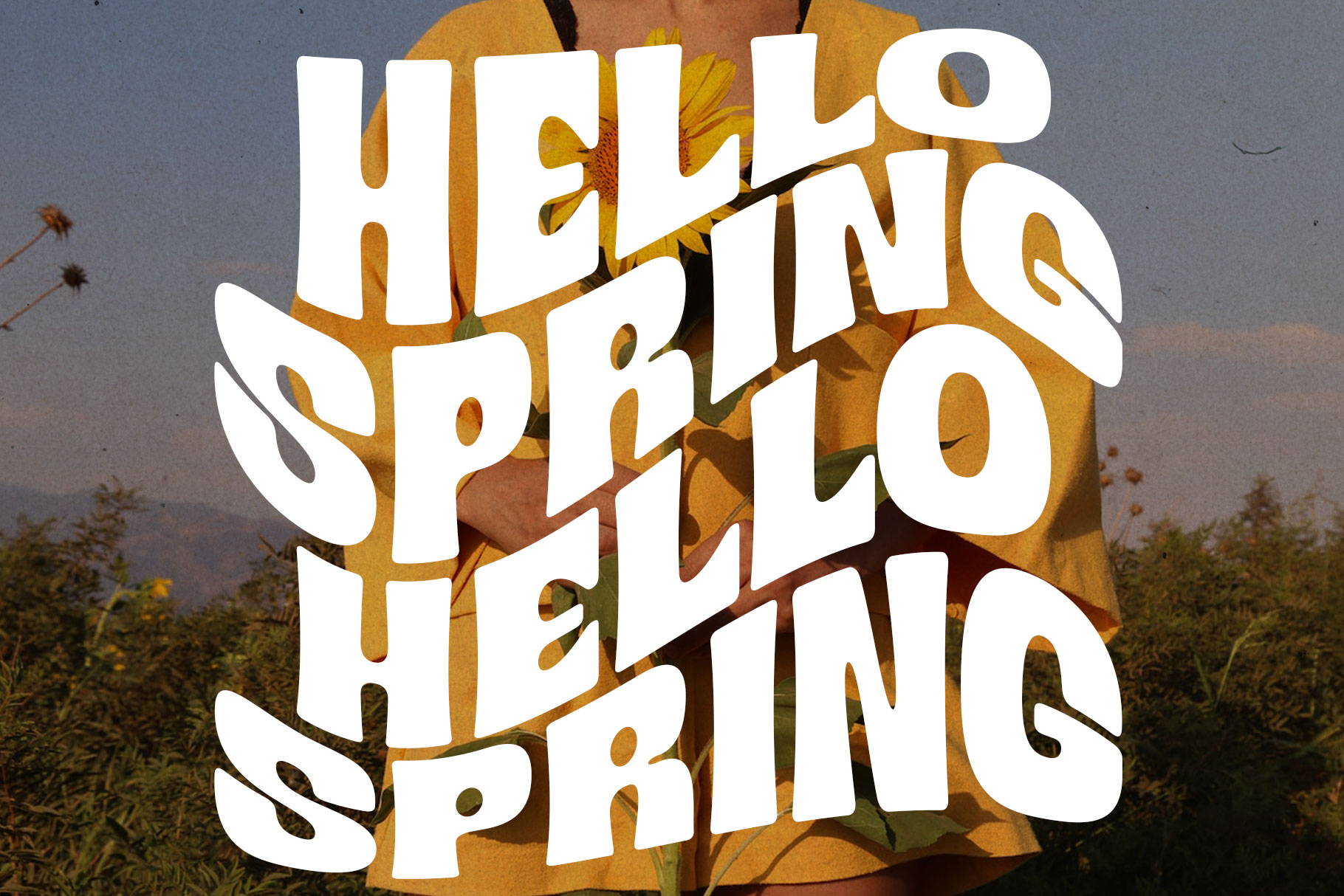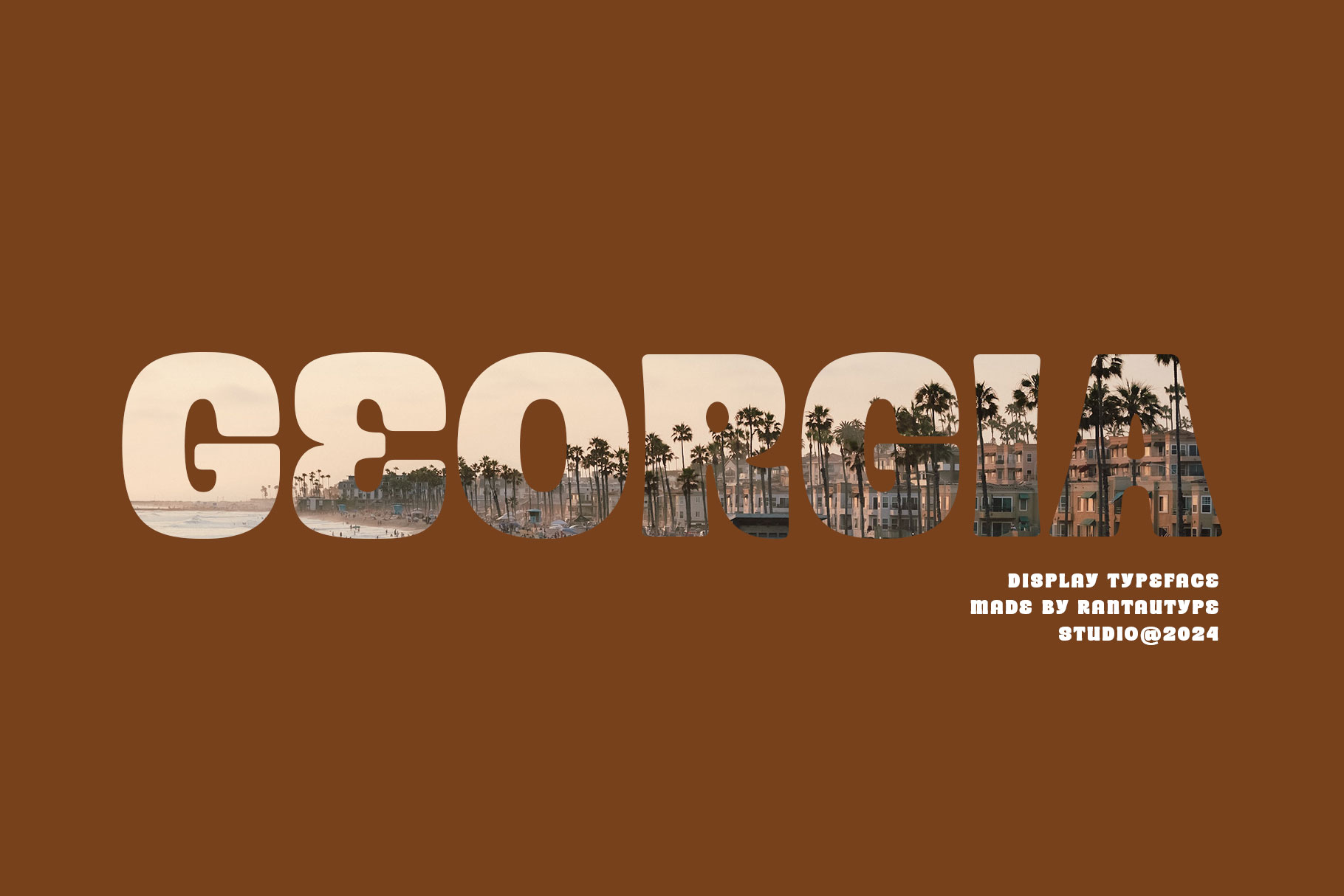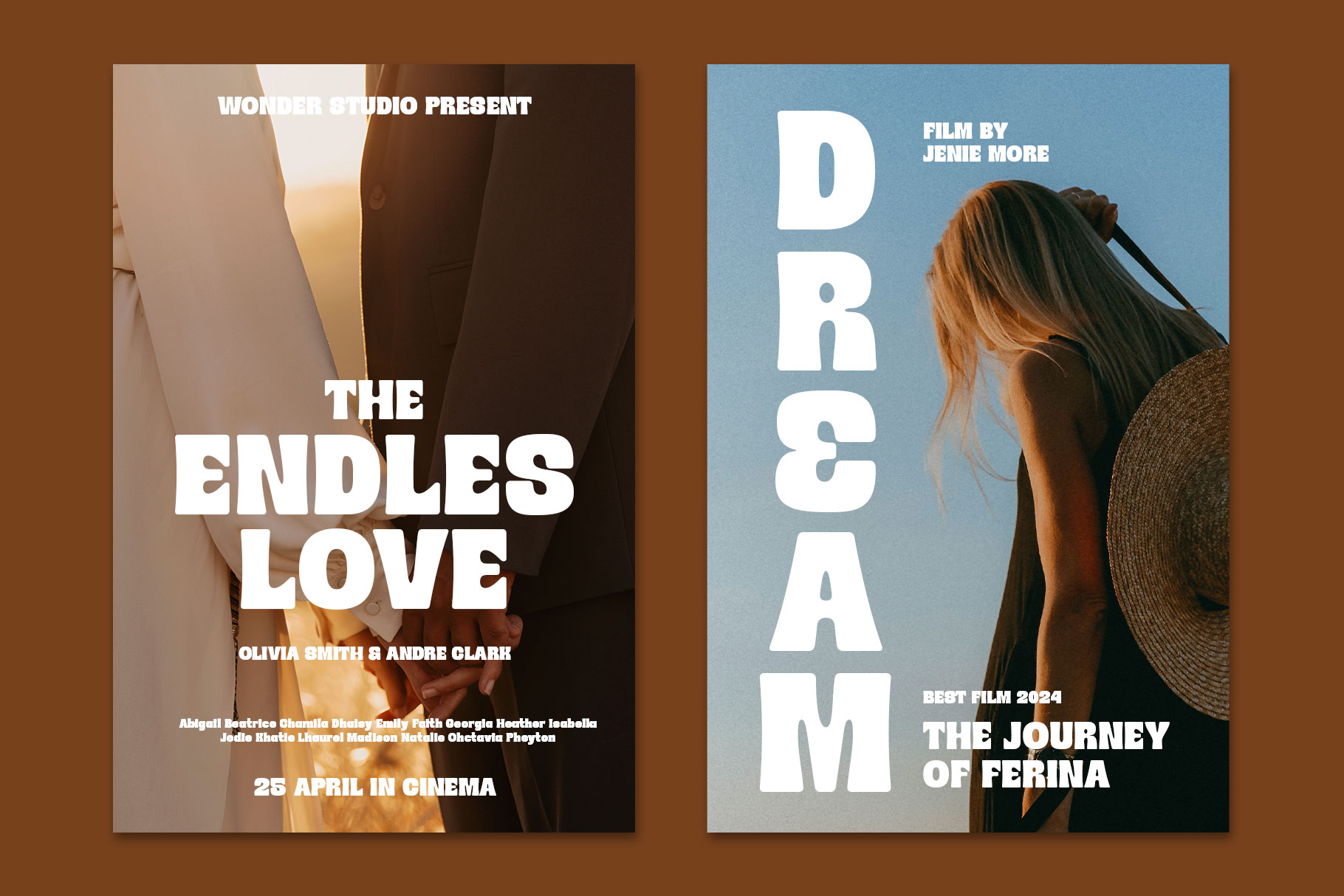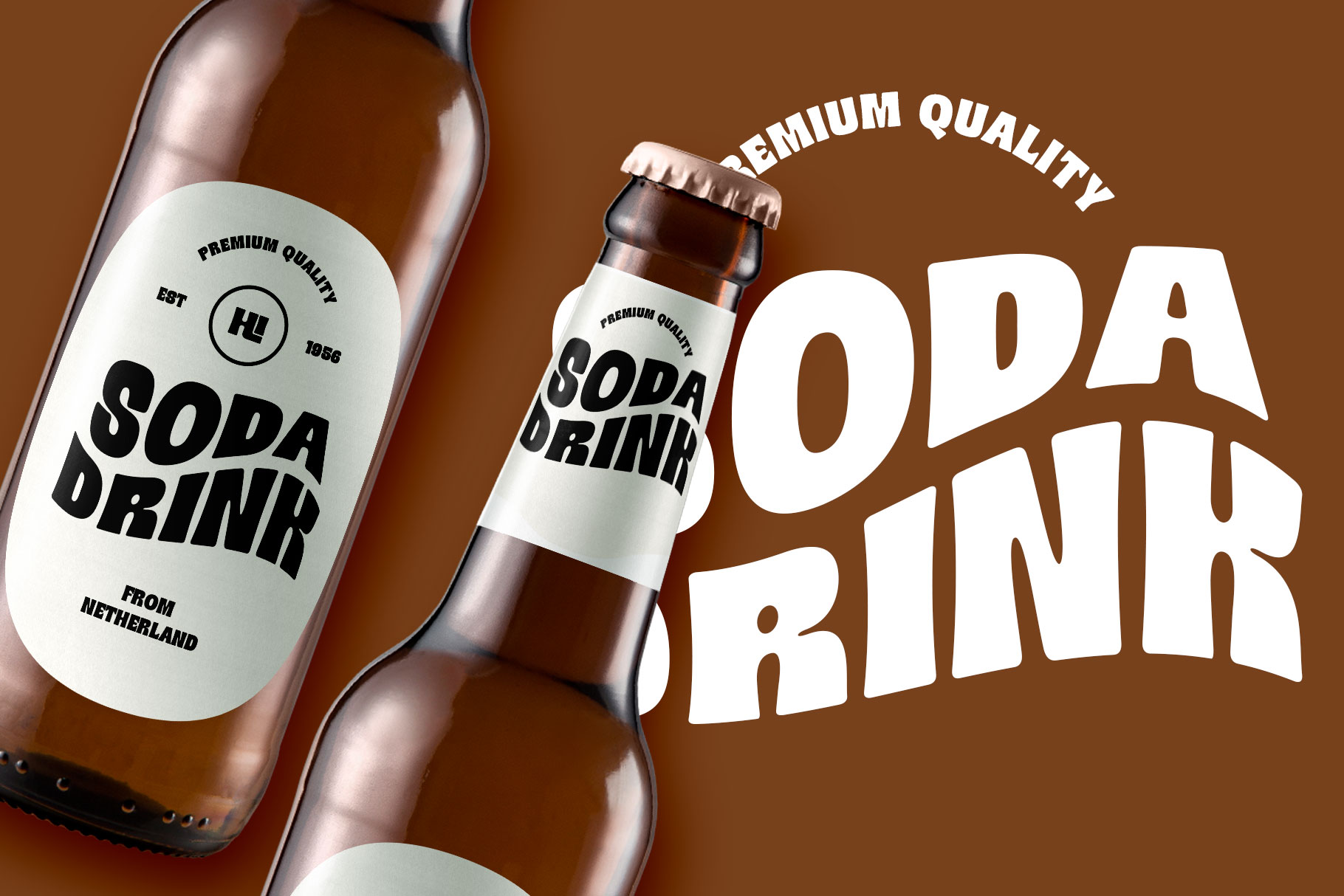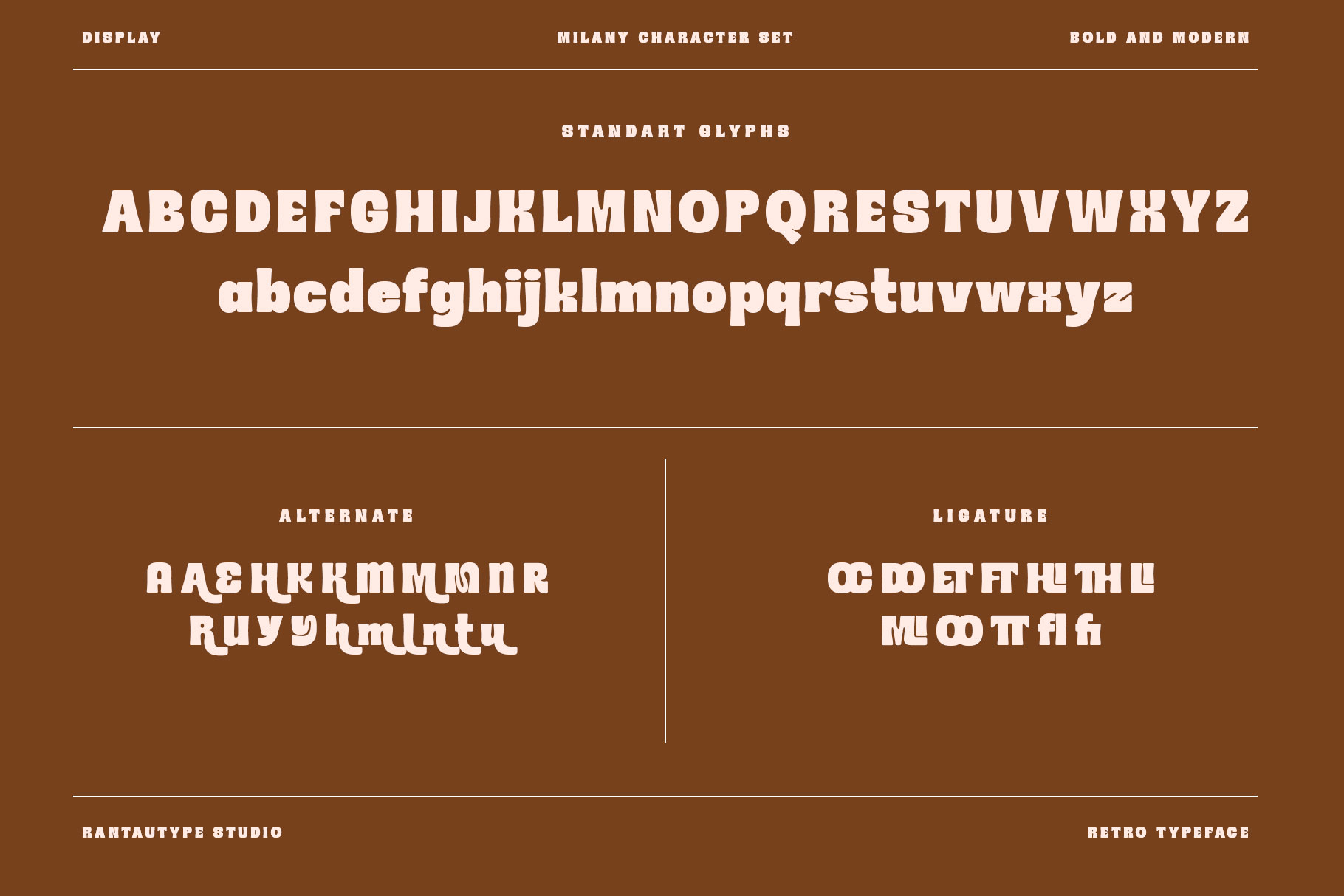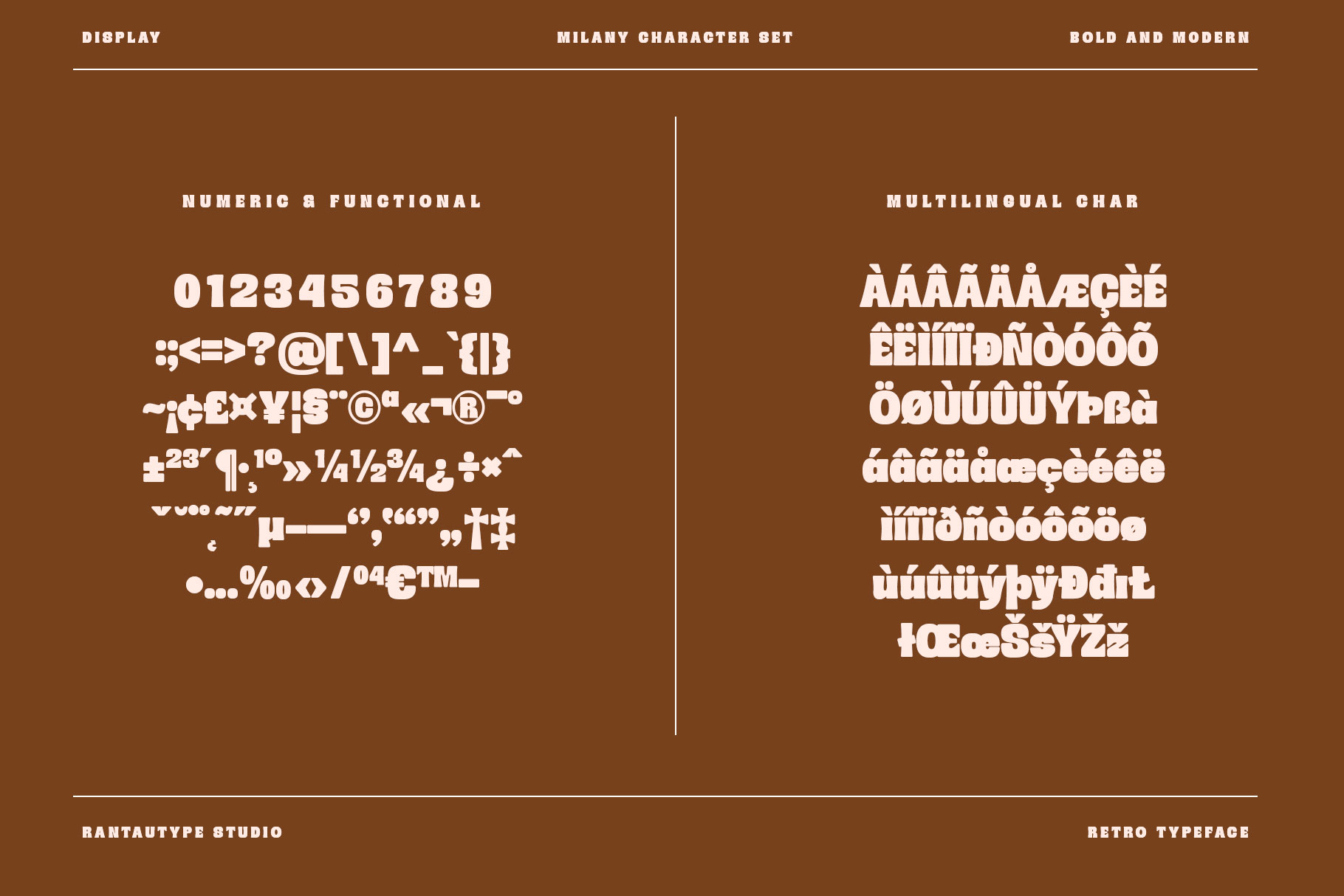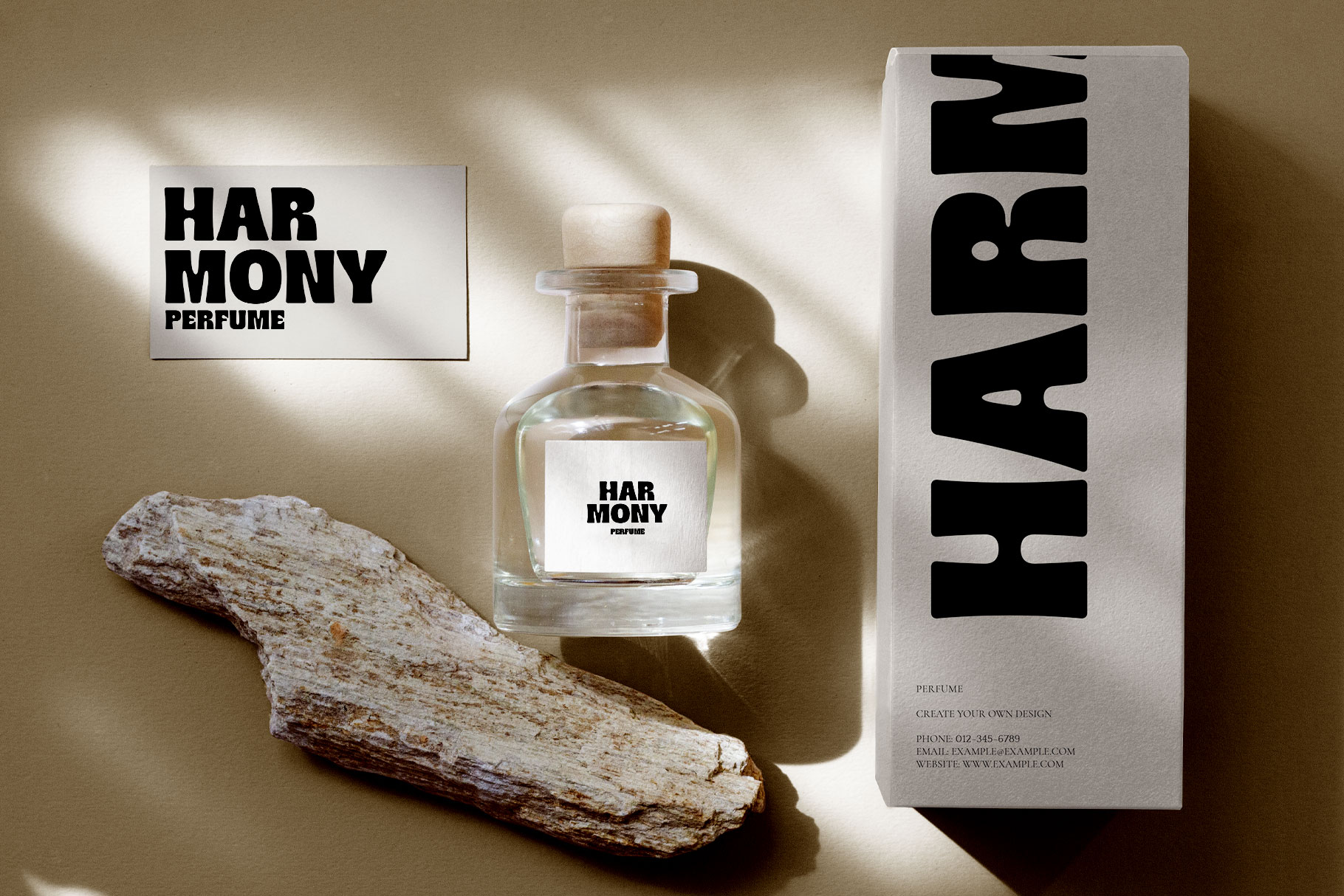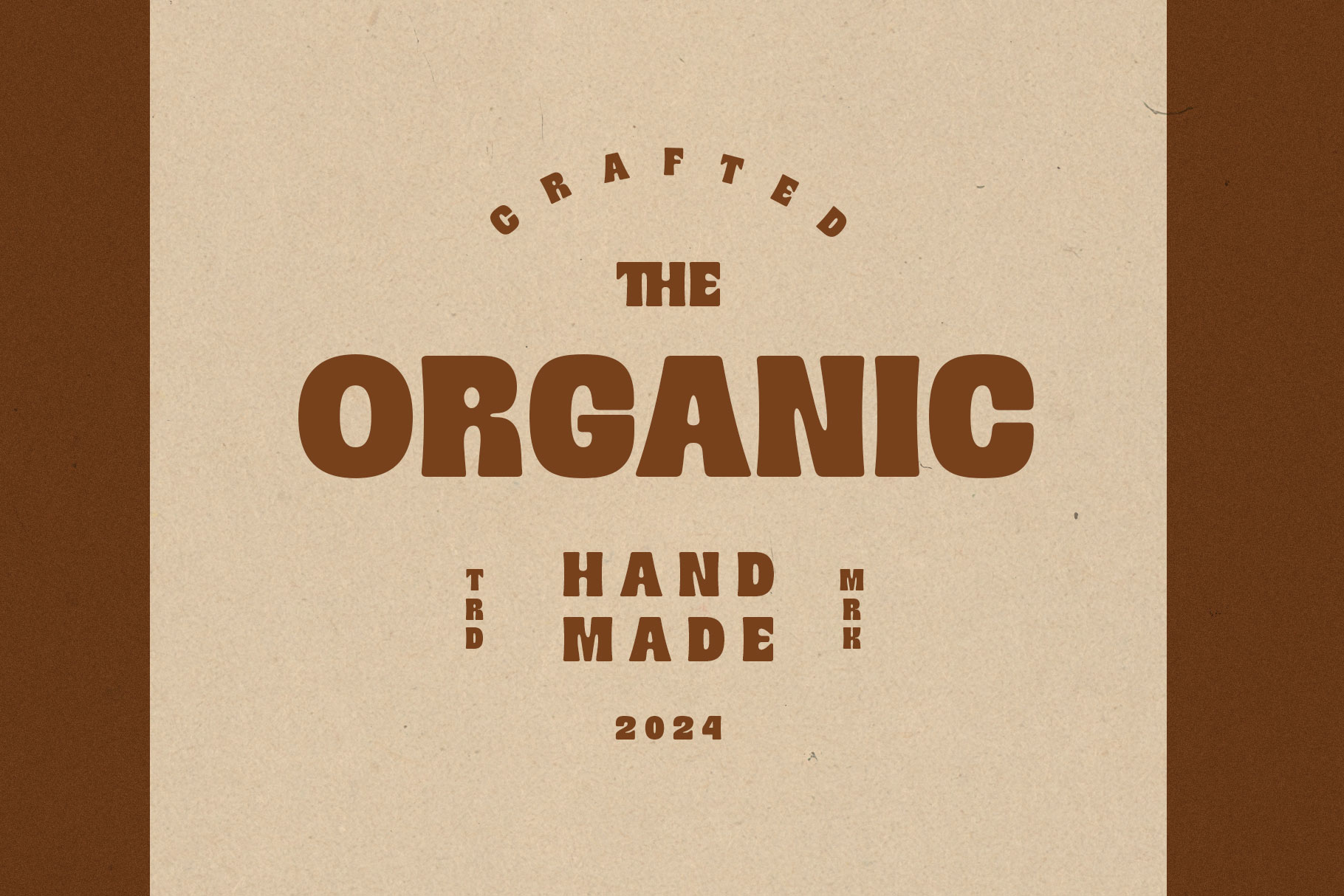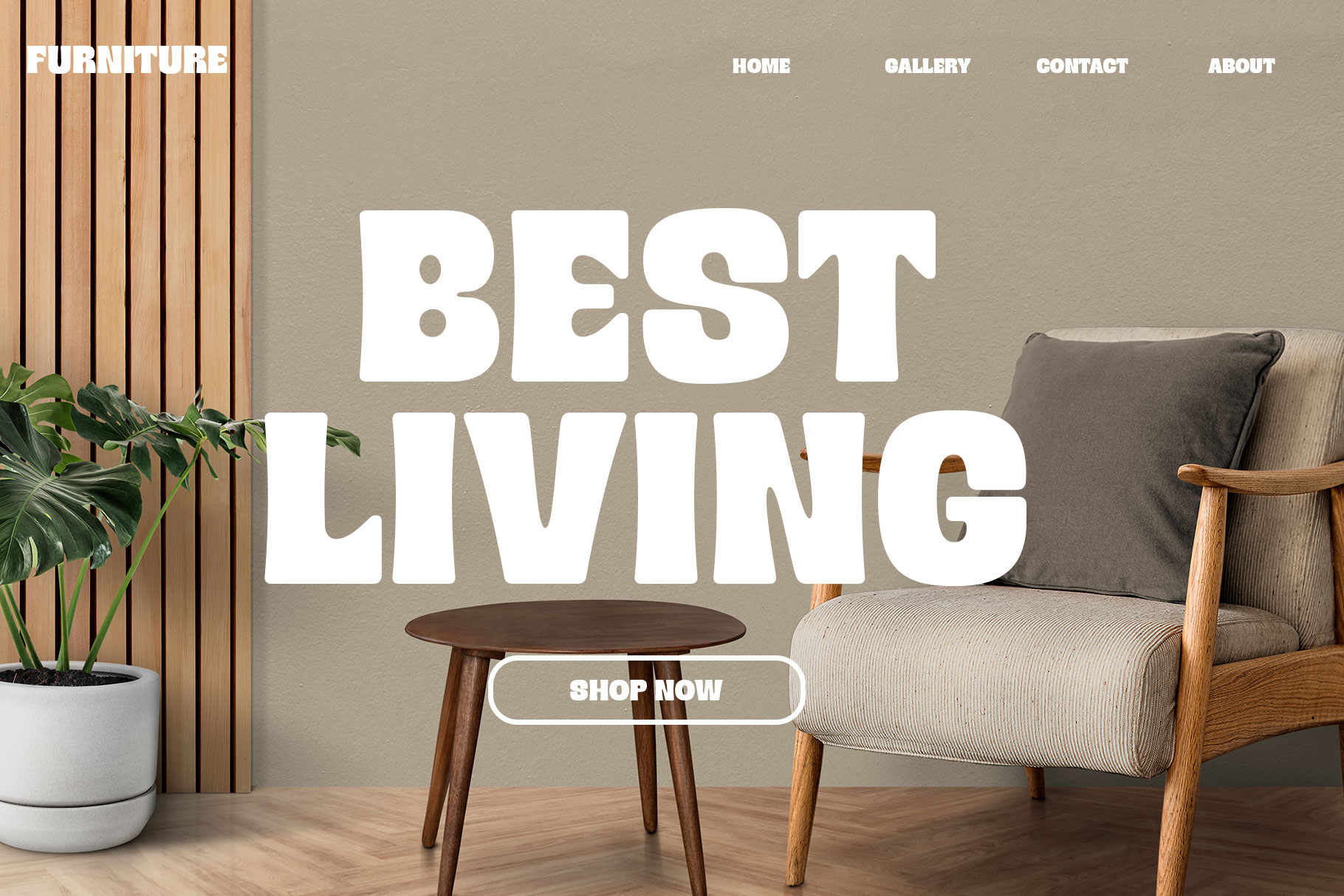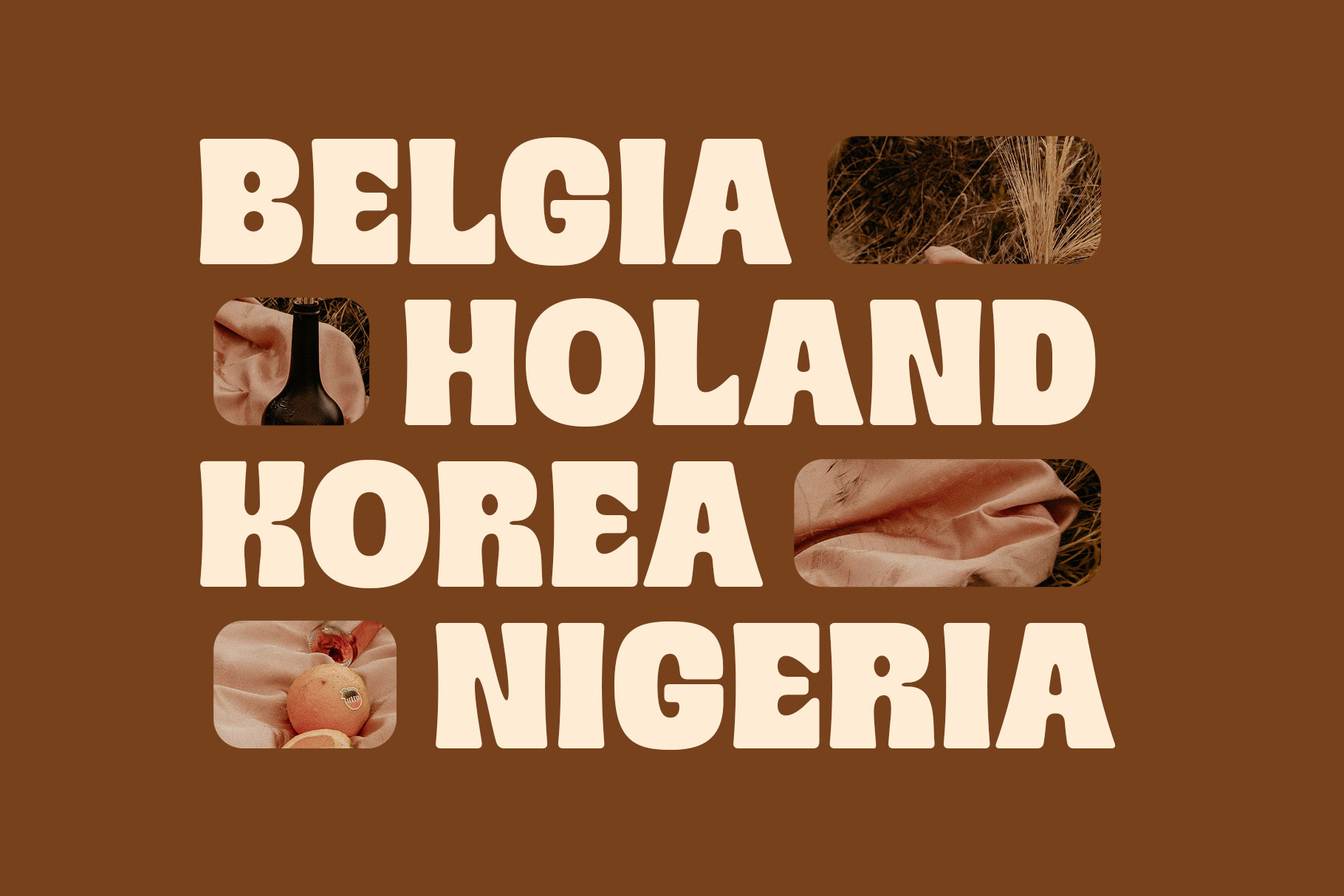
Milany Bold Display Typeface
Milany is display typeface with retro vibes. Milany bring a sophisticated, bold and flow curve to make creative design project.
Milany is a perfectly choice for any creative endeavor, chic, lifestyle design such as logos, advertisements, watermark on photography, stationery, branding project, display and magazine, invitation, corporate brand, product design, label, business project and many other project with retro touch.